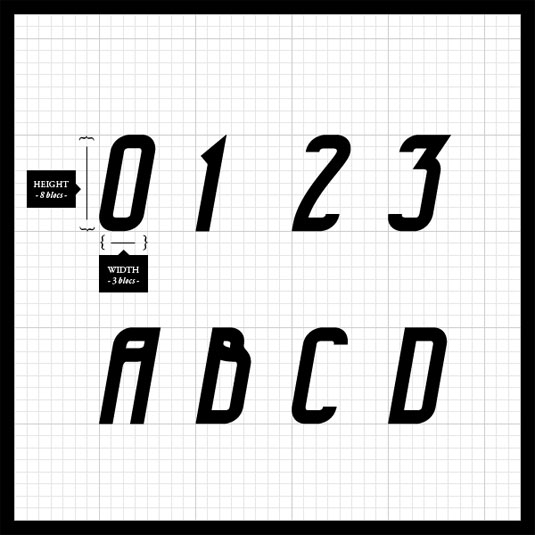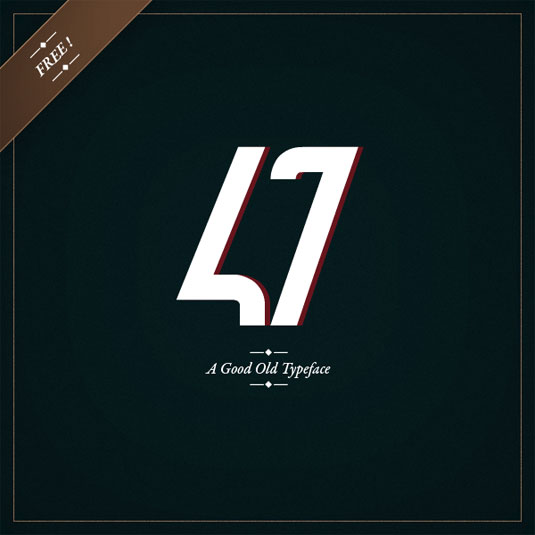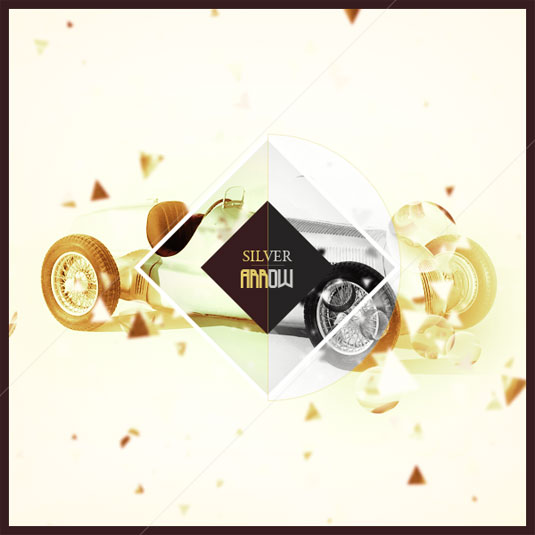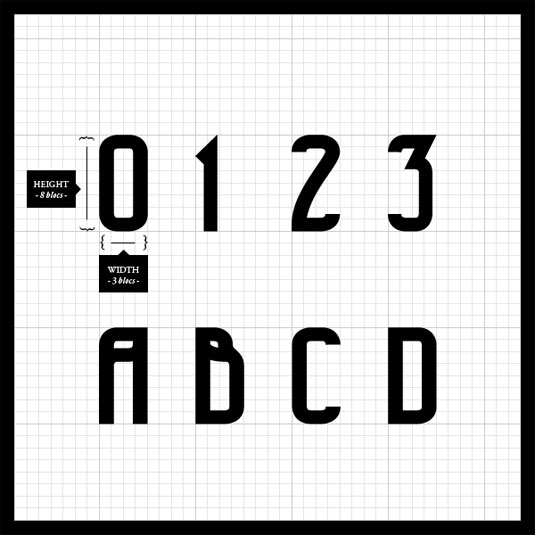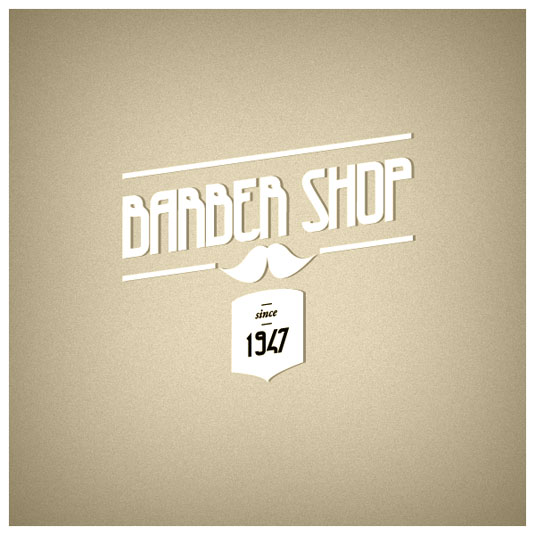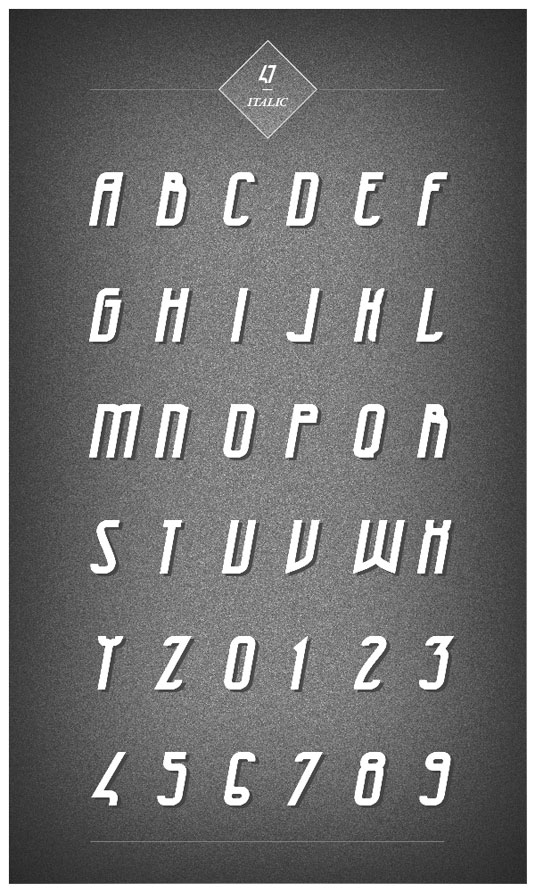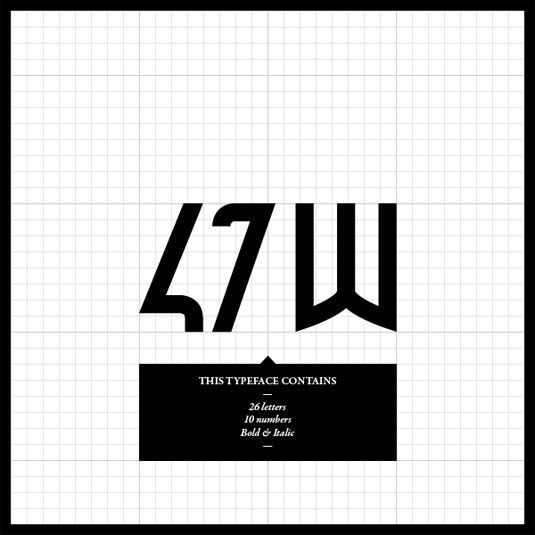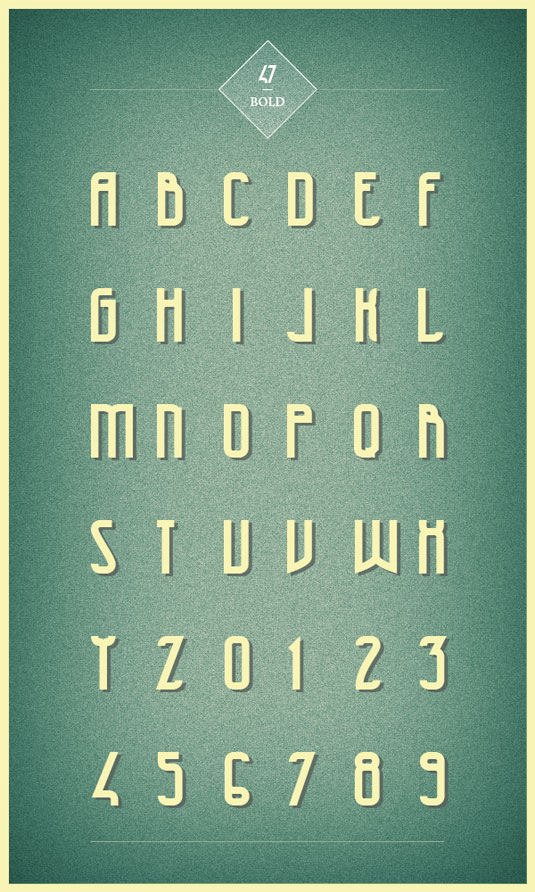
47 by Hendrick Rolandez
47 is a free typeface created with a vintage style in mind. Designed by 25-year-old graphic designer Hendrick Rolandez, the typeface contains all main characters (from A to Z - capitals and lowercases are the same) and numbers (from 0 to 9).
"The following pictures show you how are the height and the width of the typeface and some examples on how it could be included on a logo, photo or anything else you would like to," explains Rolandez. This is a FREE typeface and you can even use it for commercial works. Have fun experimenting!